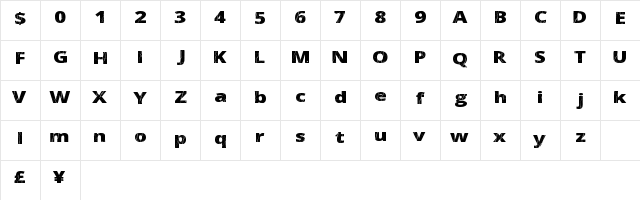
ElectricalNeue Regular
| Foundry | Xerographer Fonts |
| Designer | Xerographer Fonts Max Infeld |
Design Context for ElectricalNeue Typeface
ElectricalNeue channels digital-age aesthetics through its sharp, structured letterforms — ideal for brands that want to signal innovation.
Pro Tip: Try ElectricalNeue with generous letter-spacing in UI labels and navigation — the geometric forms benefit from room to breathe.